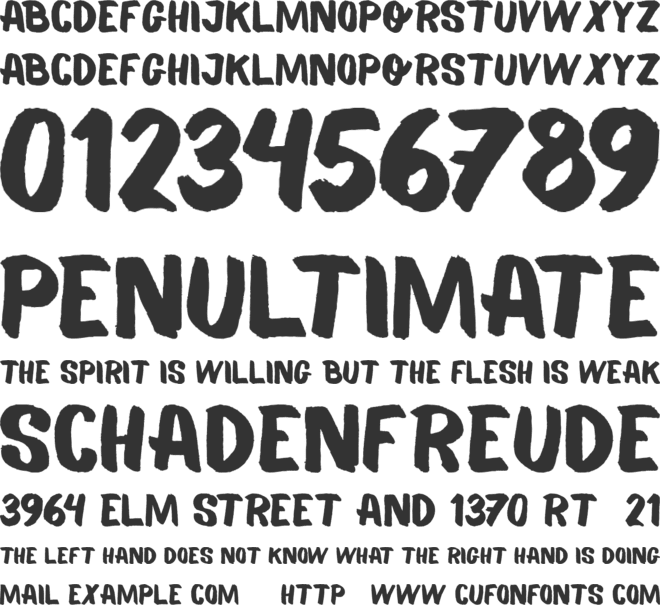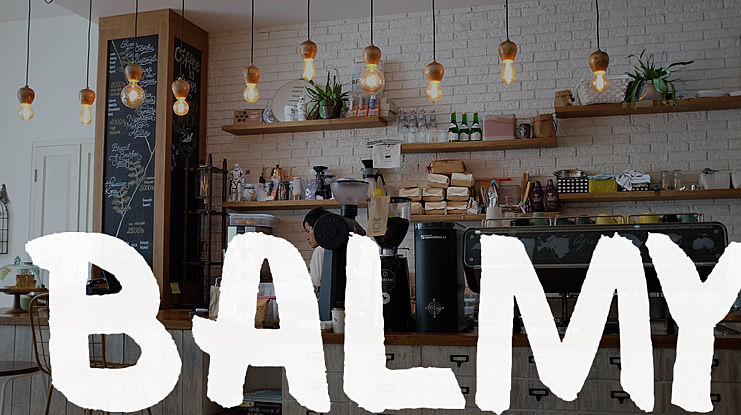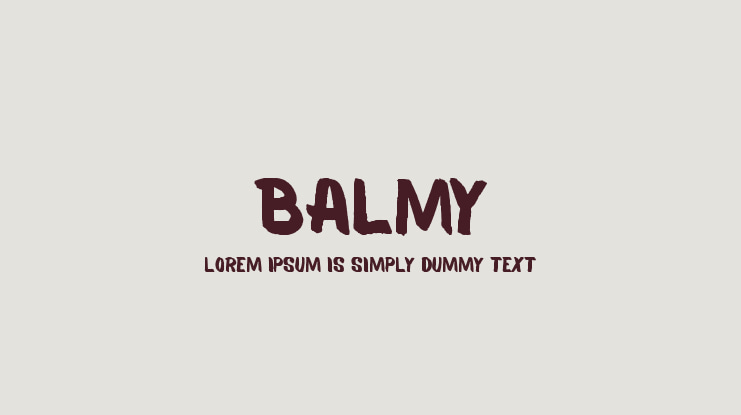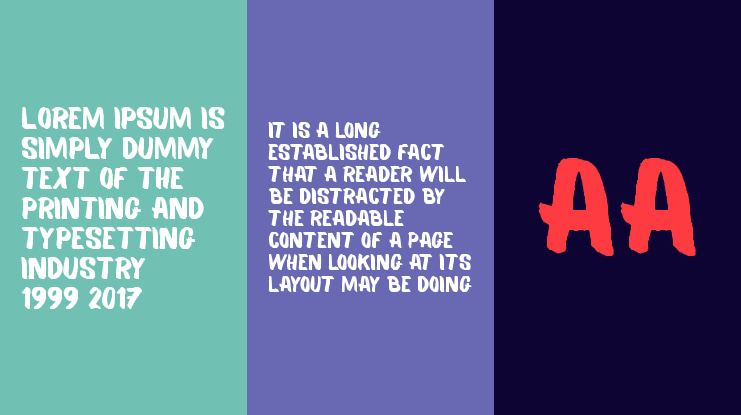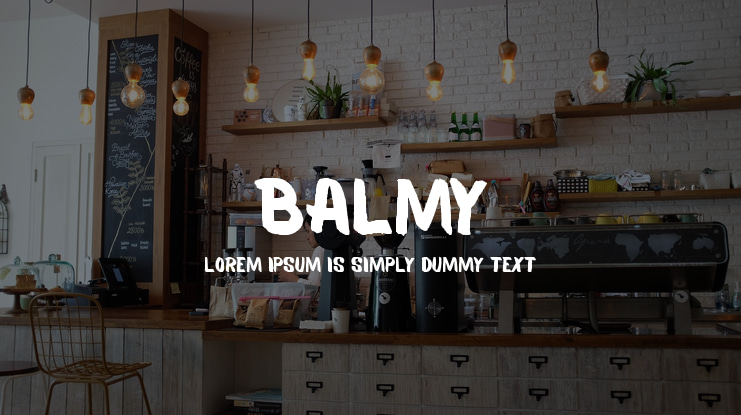
Balmy Font
Boris Garic BG11 Design
Balmy brush font is a typeface designed using a brush pen on papper. It's sutable for everything grunge and vintage or that home-made feel.